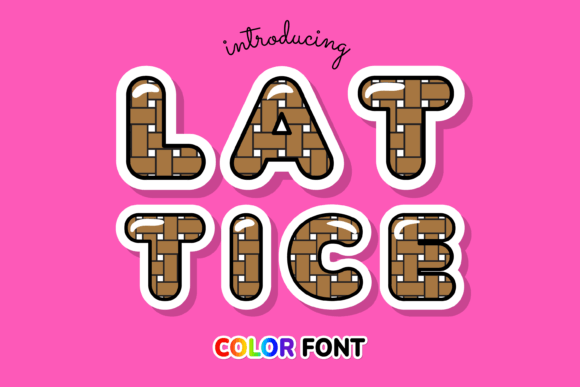
How Lattice Helped My Bakery Look More Professional
Running a small bakery has always been about more than just baking great pastries. It’s about creating an experience, building a brand, and making sure every detail—from the smell of fresh bread to the look of our packaging—speaks to our customers. When I decided to refresh our branding, I knew one thing: we needed a font that could carry the warmth of our creations while also making our visuals feel more consistent and polished.
The Moment I Needed a Font Change
A few months ago, I was preparing new packaging for our signature cinnamon rolls. The old design had a cute, handwritten feel, but it felt a bit chaotic. Customers loved the charm, but I noticed that the overall look wasn’t as professional as I wanted. I realized that typography plays a big role in how people perceive a brand—even more than the actual product itself.
I needed something that would bring a touch of elegance without losing that cozy, homemade vibe. That’s when I came across Lattice. At first glance, it looked like the perfect balance between modern and friendly. It had a clean, structured feel with a subtle personality that made it stand out.
What Is Lattice?
Lattice is a color font designed to add a unique visual flair to any project. It’s not just another pretty font—it’s a tool that can elevate your brand’s identity. With its soft curves and gentle lines, it feels both approachable and refined. The colors are vibrant yet balanced, making it ideal for use on everything from packaging to social media graphics.
What really caught my eye was how versatile it is. Whether you’re designing a logo, a menu, or a thank-you card, Lattice offers a range of styles and weights that can adapt to different needs. It’s not just for headlines; it can work beautifully as a supporting text, decorative accent, or even a standalone display font.
How I Used Lattice in My Bakery
After testing it out, I decided to use Lattice for our new packaging. I paired it with a clean sans serif font for the body text, which helped keep the design readable while allowing Lattice to shine as the headline. The result? A look that felt both professional and inviting.
On our website, I used Lattice for the main headings and product titles. It added a nice visual contrast against the background and made the content feel more engaging. On social media, I used it for captions and banners, which helped our brand stand out in a crowded feed.
One of my favorite uses was for our thank-you cards. I printed them in a soft pink and gold palette, with Lattice as the main font. The combination felt warm and personal, which aligned perfectly with our brand’s values.
Why Typography Matters for Small Businesses
Typography isn’t just about looking good—it’s about making a lasting impression. When customers see your brand, they form opinions based on how things look. A well-chosen font can make your brand feel more trustworthy, organized, and memorable.
For small businesses, consistency is key. Using the same font across all materials helps build recognition. It makes your brand feel cohesive, whether it’s on a business card, a menu, or a social media post. Lattice gave me that consistency without sacrificing personality.
Design Tips for Using Lattice
If you’re considering Lattice, here are a few tips to get the most out of it:
- Use it for headlines and titles: Its bold, structured style works well for grabbing attention.
- Pair it with a clean sans serif font: This creates a nice balance and improves readability.
- Test on small labels and mobile screens: Ensure it looks good at smaller sizes and on different devices.
- Experiment with color combinations: Lattice looks great with pastels, metallics, and earth tones.
It’s also important to consider the mood you want to convey. Lattice has a gentle, friendly energy that’s perfect for food-related brands. But it can also work for creative businesses, online shops, or boutique owners who want to add a touch of sophistication to their designs.
Final Thoughts
Since using Lattice, my bakery has seen a noticeable improvement in how our brand is perceived. Our packaging feels more intentional, our social media posts look more polished, and our customers seem more engaged. It’s a small change, but one that has made a big difference.
If you’re looking for a font that can help your brand stand out without feeling too flashy, Lattice is worth considering. It’s a great choice for anyone who wants to add a touch of color and personality to their designs while maintaining a professional and consistent look.